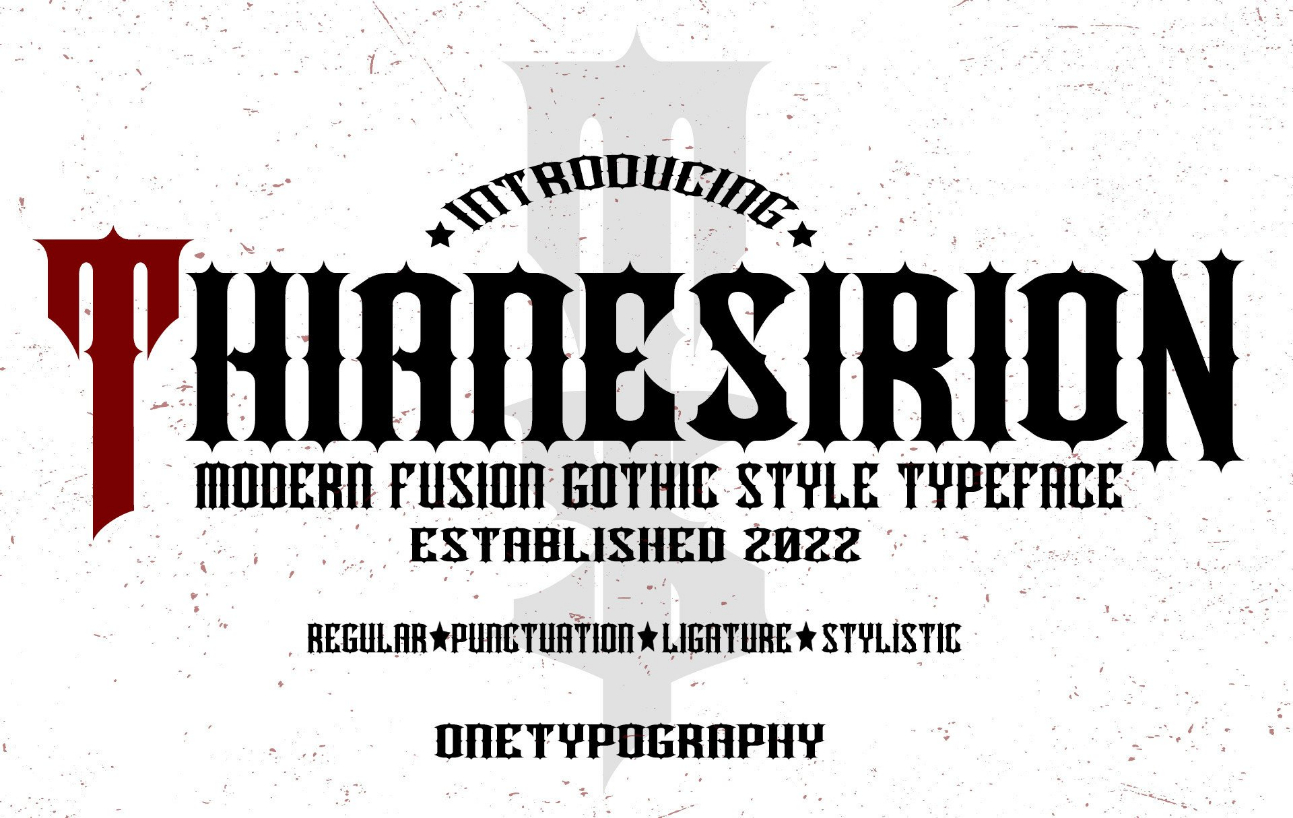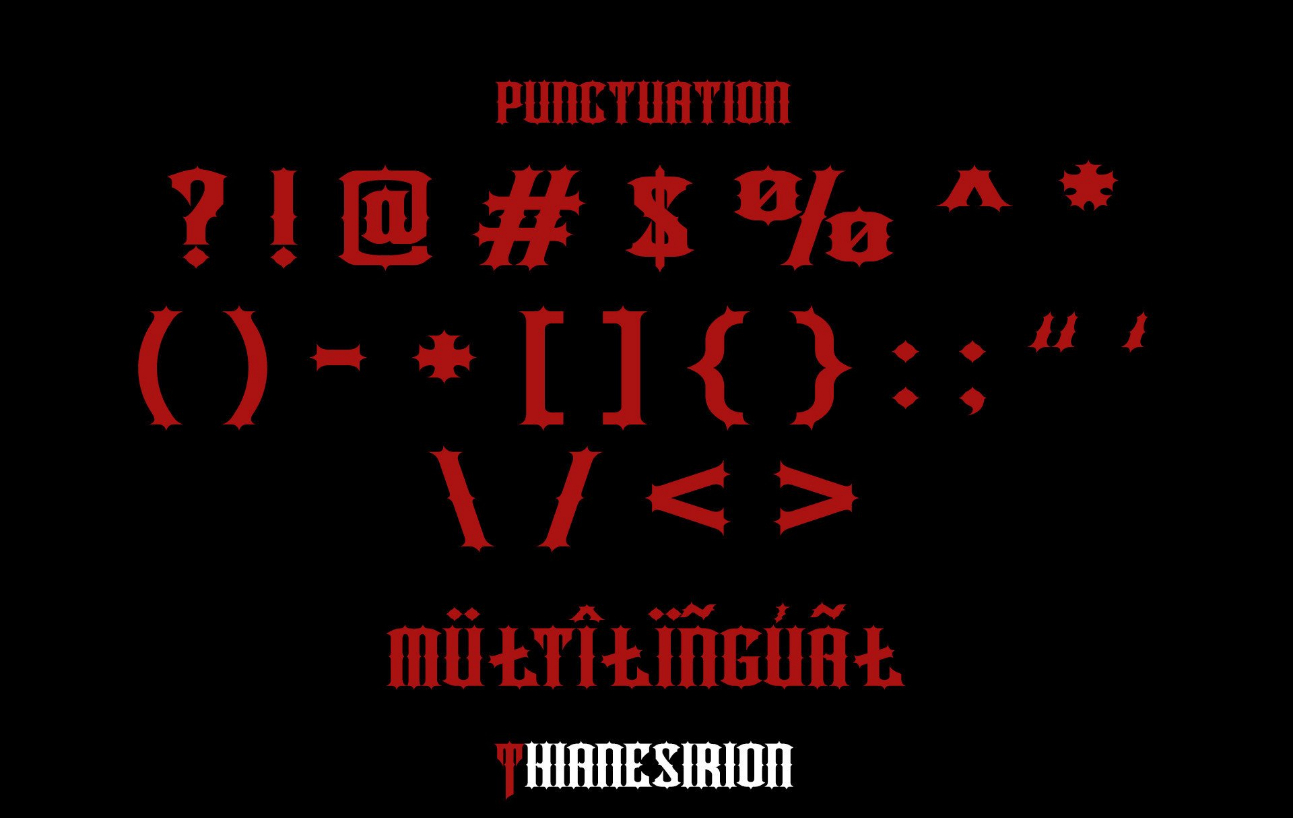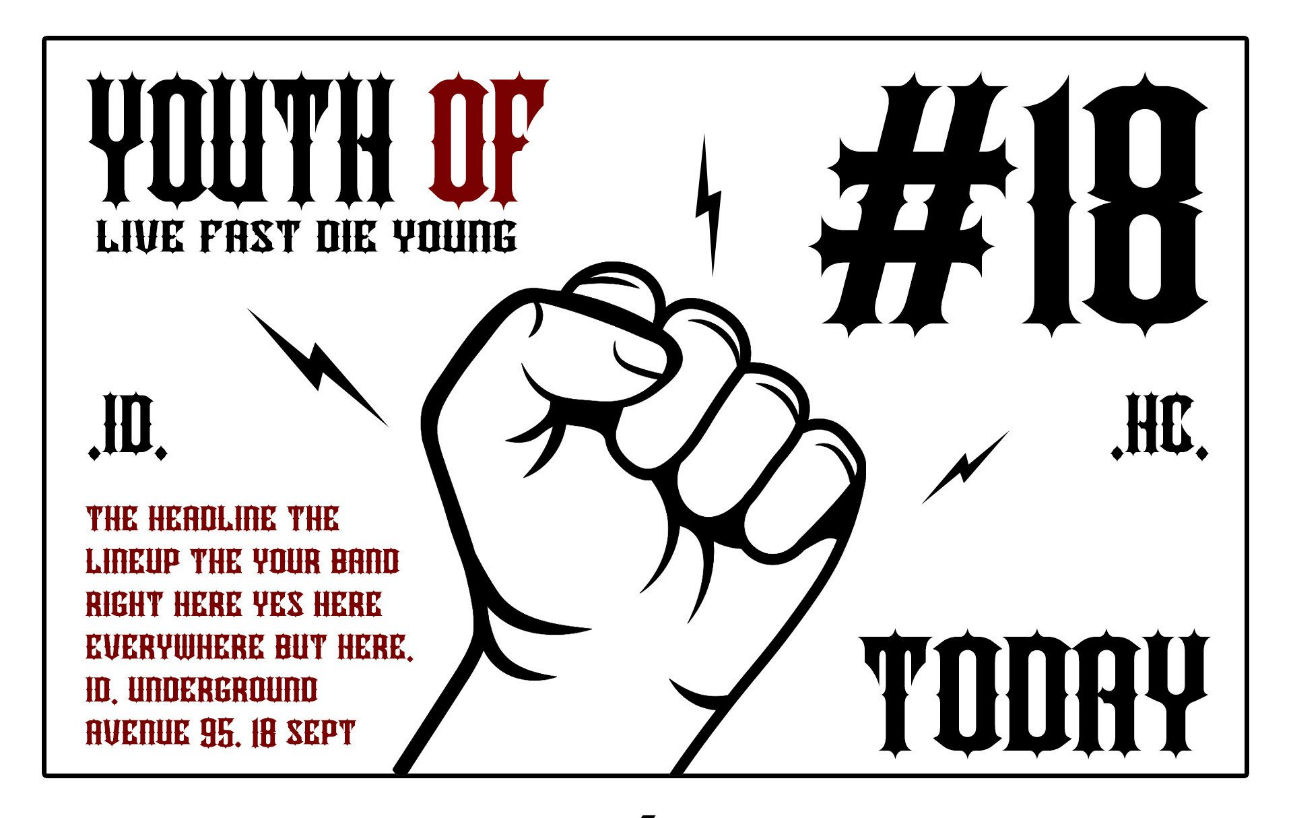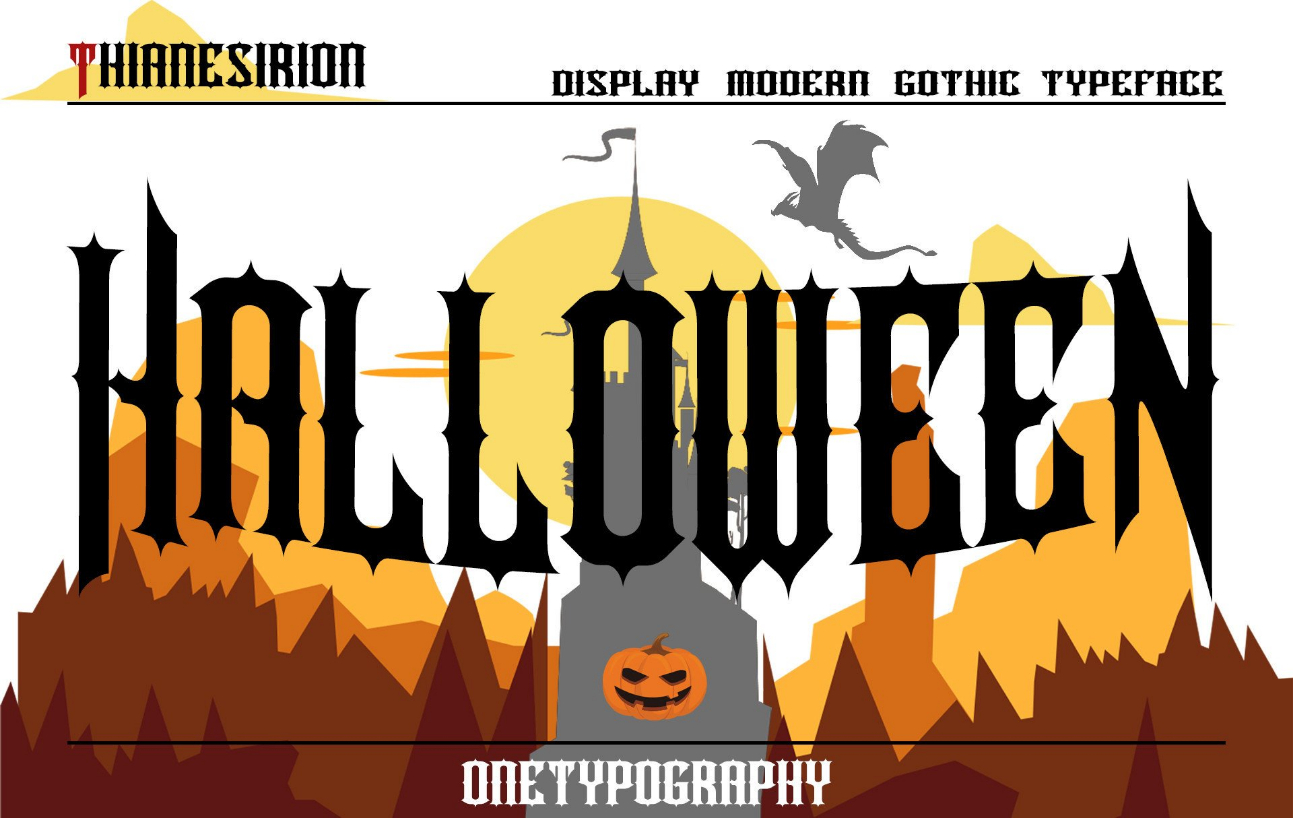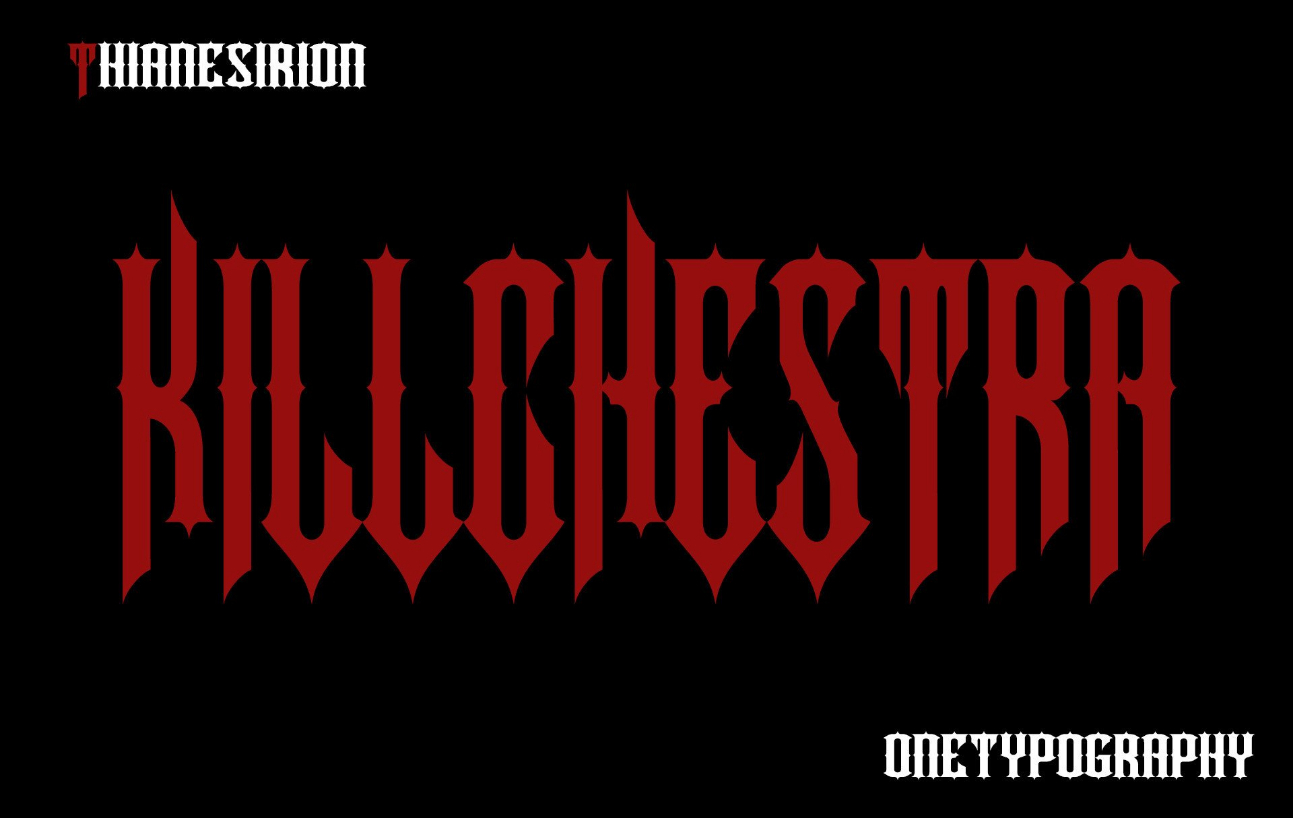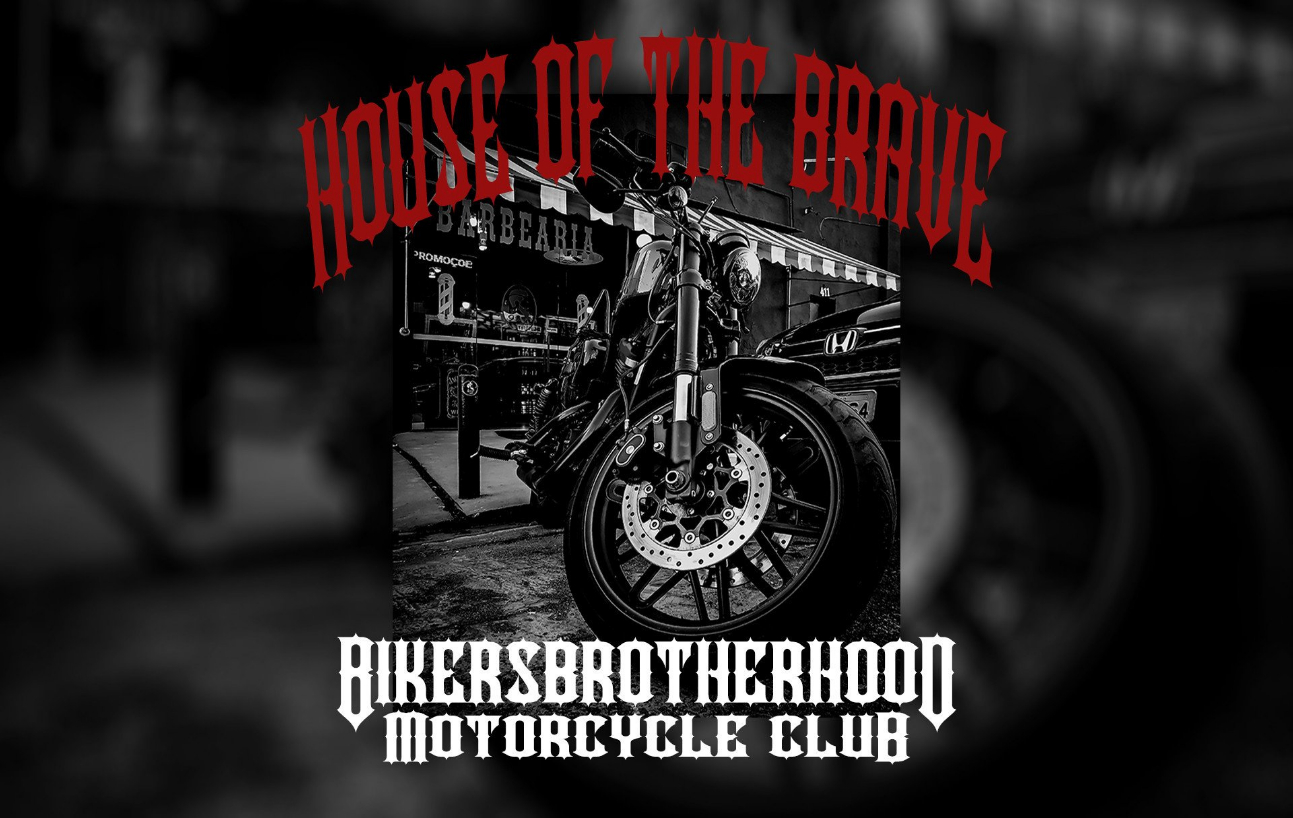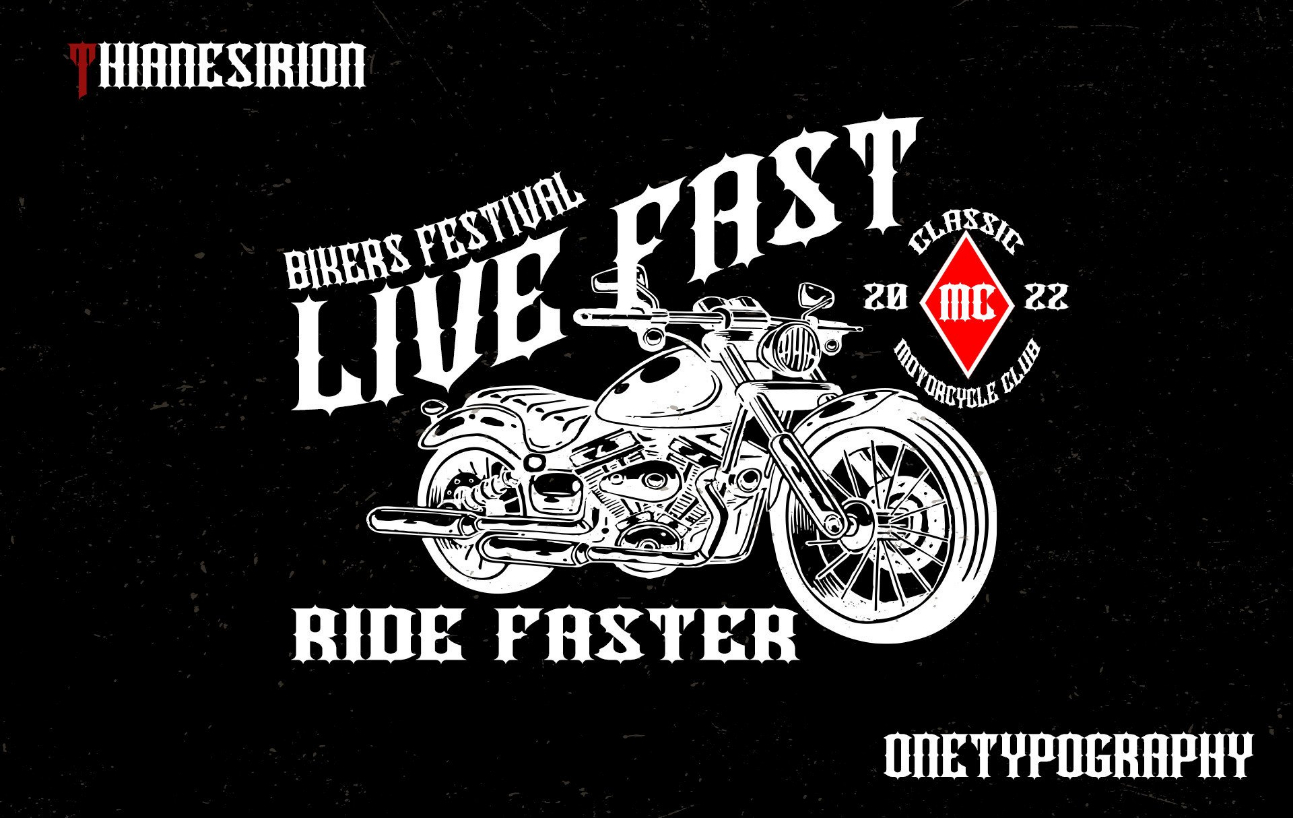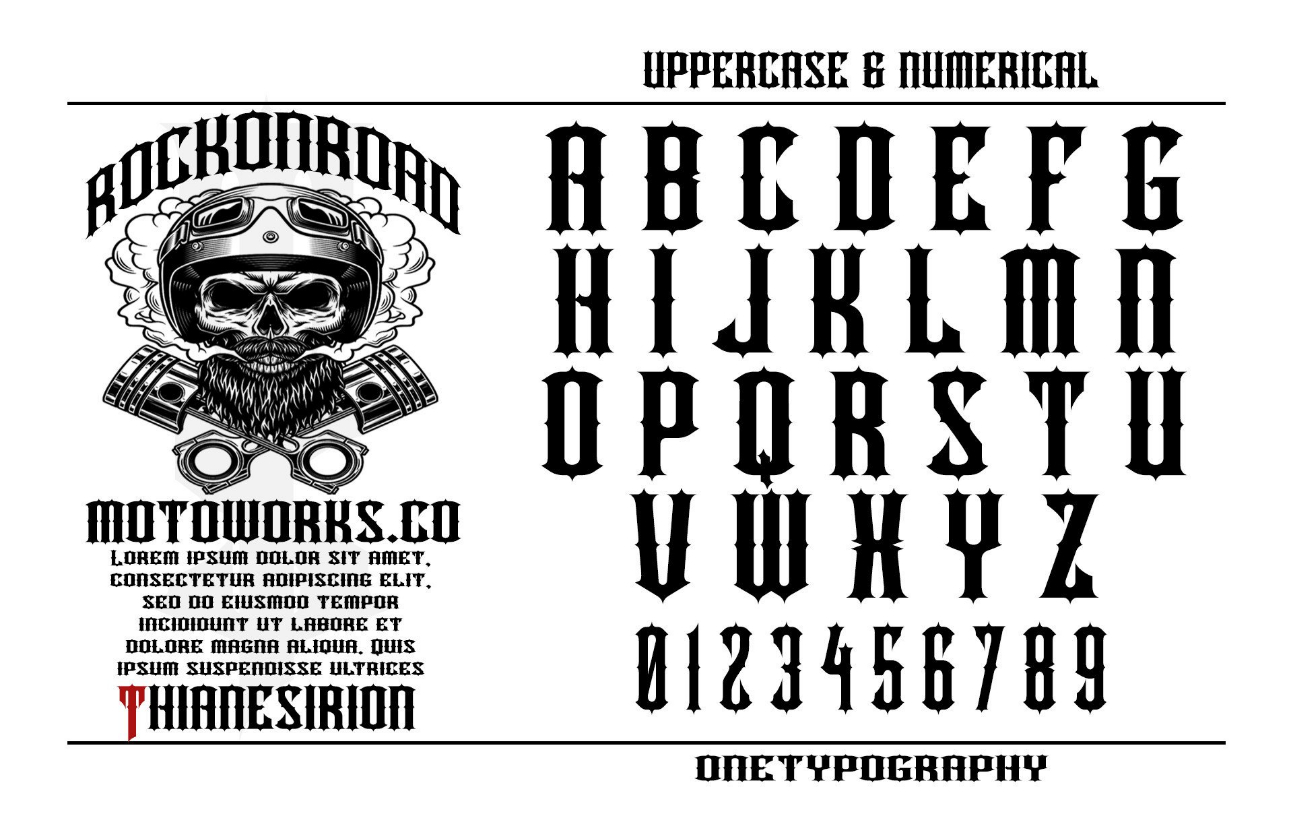
Thianesirion Font
About Thianesirion Font
Thianesirion is a modern Gothic blackletter font. Its unique style and artistic features make this font suitable for a wide range of projects that require bold and daring typography. This font is PUA encoded which means you can access all the glyphs and ligatures with ease!